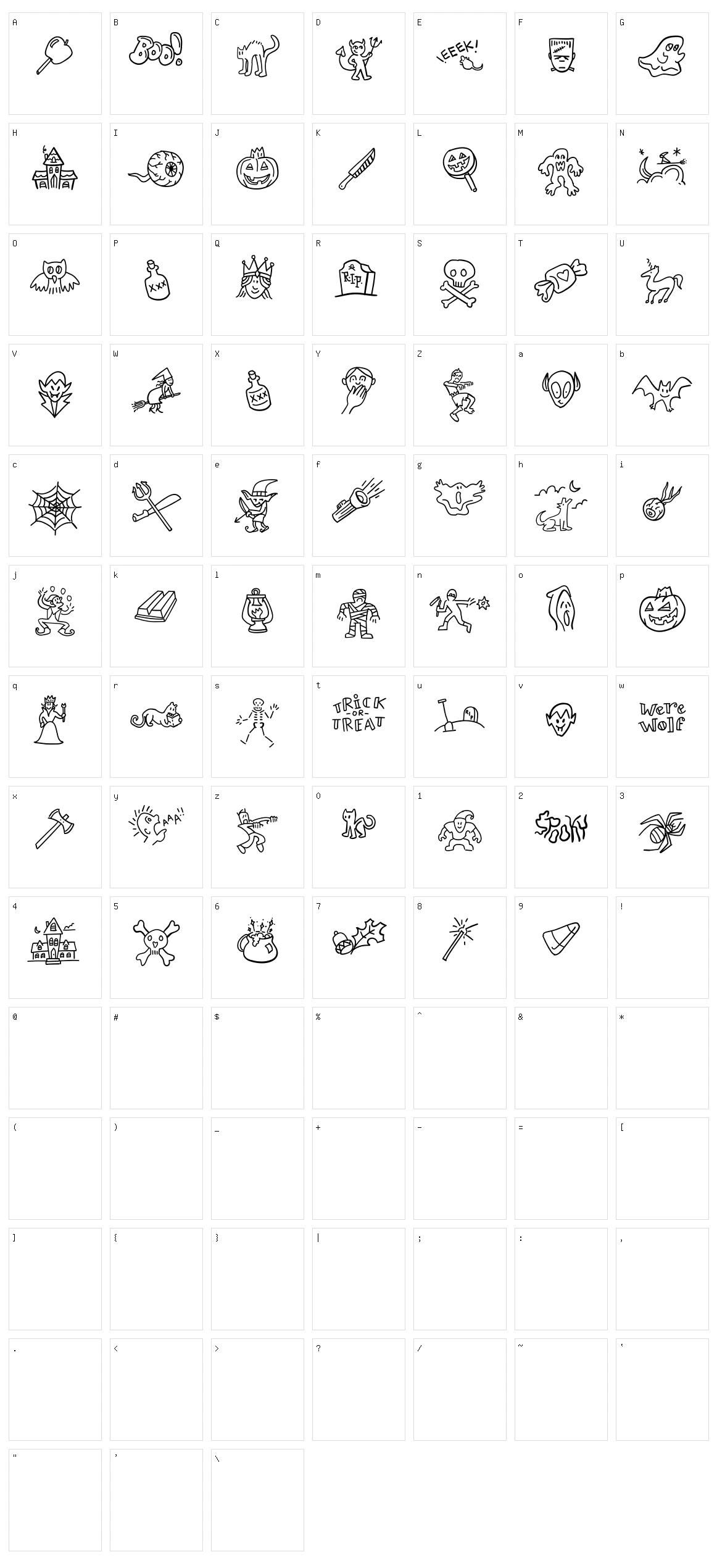
The free font Weenies is carefully designed by Field 2 Design, showcasing a thoughtful balance of creativity and usability and falls under the Halloween font style. When you download the ZIP file, it contains only 122.45 KB of font files, making it lightweight and quick to download. Please review the license details below to understand permitted usage and distribution rights. If license information is not available, we recommend using this font for personal projects only or contacting the author directly for commercial usage permissions.